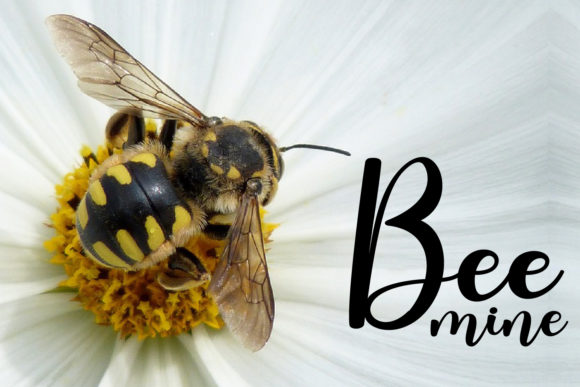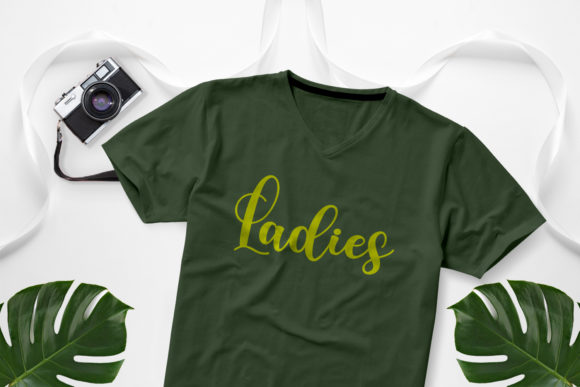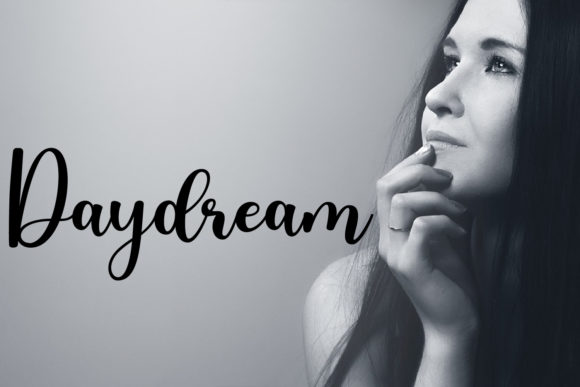
The Perfect Brushstroke: Discovering the Bresciano Font
There’s something magical about watching a design come together. You’re pouring over your sketchbook, experimenting with different typography, and suddenly, the perfect combination clicks into place. The letters seem to dance on the page, and your heart skips a beat as you envision the finished product. It’s moments like these that make design so thrilling.
For those looking to add a touch of elegance and whimsy to their next project, look no further than the Bresciano Font. This beautiful, handwritten font is perfect for crafting eye-catching logos, branding, and quotes that leave a lasting impression. Every letter has a unique and beautiful touch, making your design come alive in the most captivating way.
As a designer, you understand the importance of having the right tools at your fingertips. The Bresciano Font is a valuable addition to any design arsenal, offering endless possibilities for creative expression and bringing your visions to life with ease.
Bresciano Font Key Features
- Font Family: Bresciano is a script font family, ideal for creative and elegant typography.
- Size: The font family is available in 8 different weights, ranging from Light to ExtraBold, to cater to diverse design needs.
- Unique Characteristics: Bresciano features a unique blend of modern and classic elements, with elegant connections and subtle flair, making it perfect for creative projects.
Bresciano Font Review
I recently had the chance to work with the Bresciano font, and I wanted to share my honest thoughts on it. ✨ One thing that immediately stood out to me was the unique and elegant aesthetic of the font. It’s perfect for creating a sophisticated and high-end look for any project.
- ✨ Elegant and sophisticated aesthetic
- ✨ Perfect for creating a high-end look
- ✨ Comes in multiple weights and styles
However, I did encounter some limitations while working with the font. ⚠️ For one, the font can be quite pricey, which may be a barrier for some designers or projects with limited budgets. Additionally, the font may not be as versatile as some other options, making it less suitable for projects that require a wide range of font styles.
- ⚠️ May not be as versatile as other options
Overall, I think the Bresciano font is a great choice for projects that require a sophisticated and elegant look. While it may have some limitations, its unique aesthetic and high-end feel make it well worth considering for the right projects.
Tips for Getting the Most Out of the Bresciano Font
Here are some tips for getting the most out of the Bresciano font:
- Use the Bresciano font in combination with other serif fonts for a classic look.
- Use the Bresciano font for titles and headings to add a touch of elegance.
The Bresciano font is commonly used in:
Alternatives to Bresciano Font
Playfair Display is a luxurious, high-end serif font that is perfect for formal and elegant designs. It has a more refined and sophisticated look compared to Bresciano Font. Playfair Display is ideal for use in magazines, books, and high-end branding projects.
Compared to Bresciano Font, Playfair Display has a more classic and timeless look, while Bresciano Font has a more vintage and distressed feel.
Merriweather is a classic serif font that is perfect for body text and long-form content. It has a clean and elegant look that is easy to read, making it a great alternative to Bresciano Font for longer pieces of text.
Compared to Bresciano Font, Merriweather has a more straightforward and classic look, while Bresciano Font has a more ornate and decorative feel.
Didot is a luxurious and elegant serif font that is perfect for formal and high-end designs. It has a more refined and sophisticated look compared to Bresciano Font, making it ideal for use in magazines, books, and high-end branding projects.